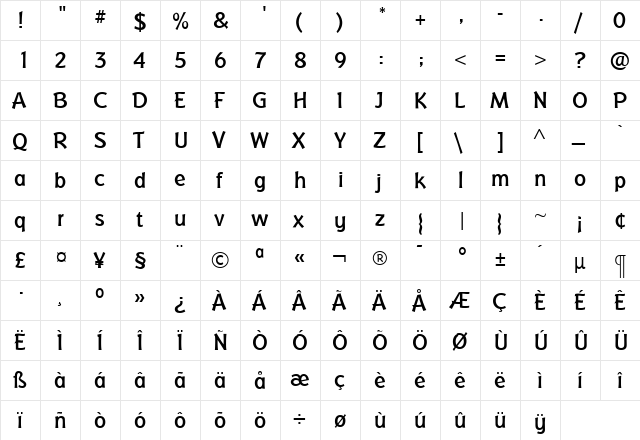
BadgerMedium Roman
Design Context for BadgerMedium Typeface
BadgerMedium takes a measured approach to typography — its balanced proportions and neutral character make it a reliable workhorse for both digital and print work.
Pro Tip: Use BadgerMedium in both headline and body roles to test its range before committing to a single application.